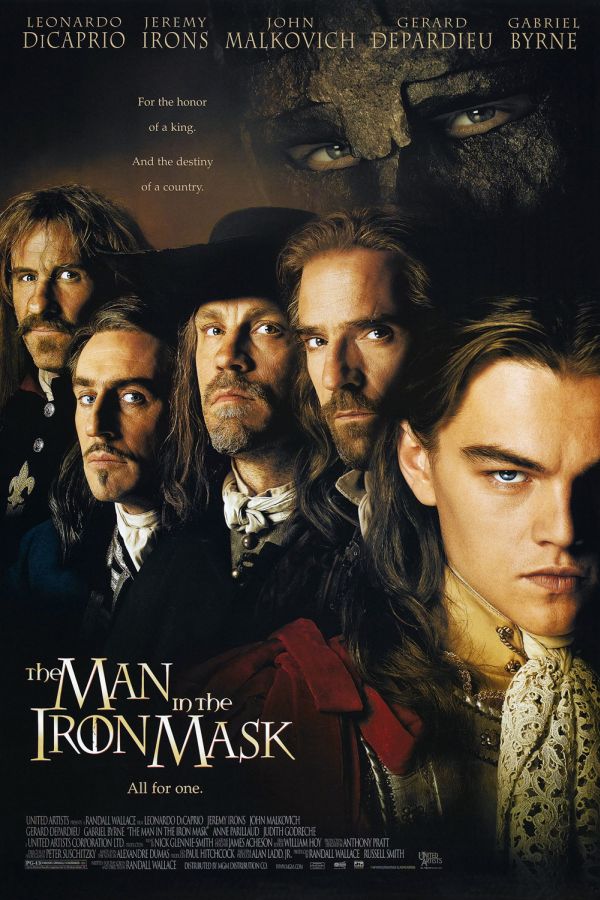
The Man in the Iron Mask Font
AdventureThe Man in the Iron Mask is a 1998 American action drama film written, directed, and produced by Randall Wallace. The film centers on the aging four Musketeers: Athos, Porthos, Aramis, and D’Artagnan, and the mystery of the Man in the Iron Mask during the reign of King Louis XIV of France.
On the poster, the Man in the Iron Mask title is written in Charlemagne font. Carol Twombly created this decorative typeface based on the exquisite versals of tenth-century England, which were derived from the classical roman letterforms used during the reign of Emperor Charlemagne. You can view more details about the typeface here.